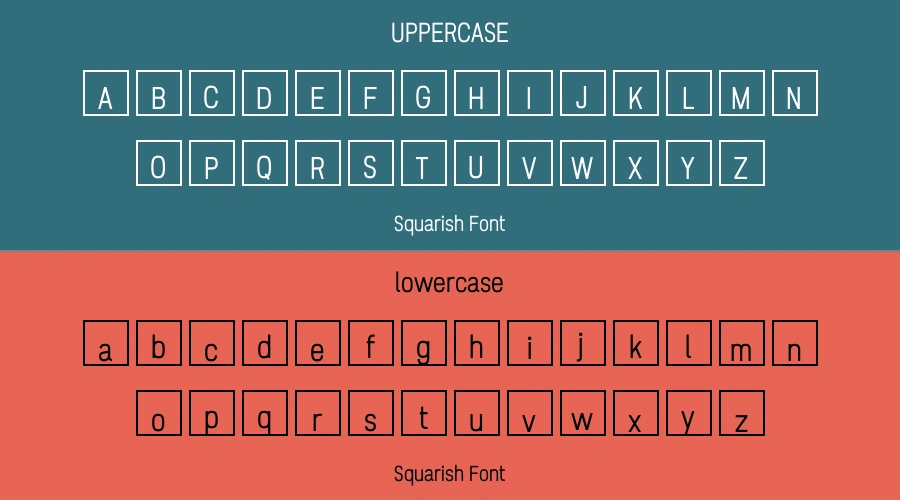
About Squarish Font
Squarish Font stands out for its distinctive combination of width contrast and reliability. Ideal for academic publications, it provides the flexibility and manufacturing quality that professional projects demand. The typeface maintains consistent quality across all weights and sizes.
Key features include refined elegant curves and practical contextual alternates, enhancing typographic expression. In warning labels applications, Squarish Font demonstrates exceptional print fidelity. The joint construction and lifestyle connection contribute to its distinctive character and professional appeal.